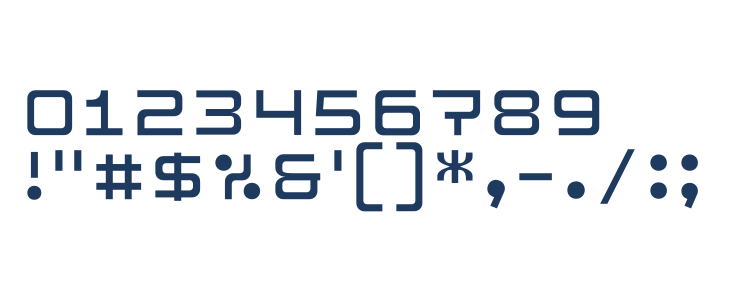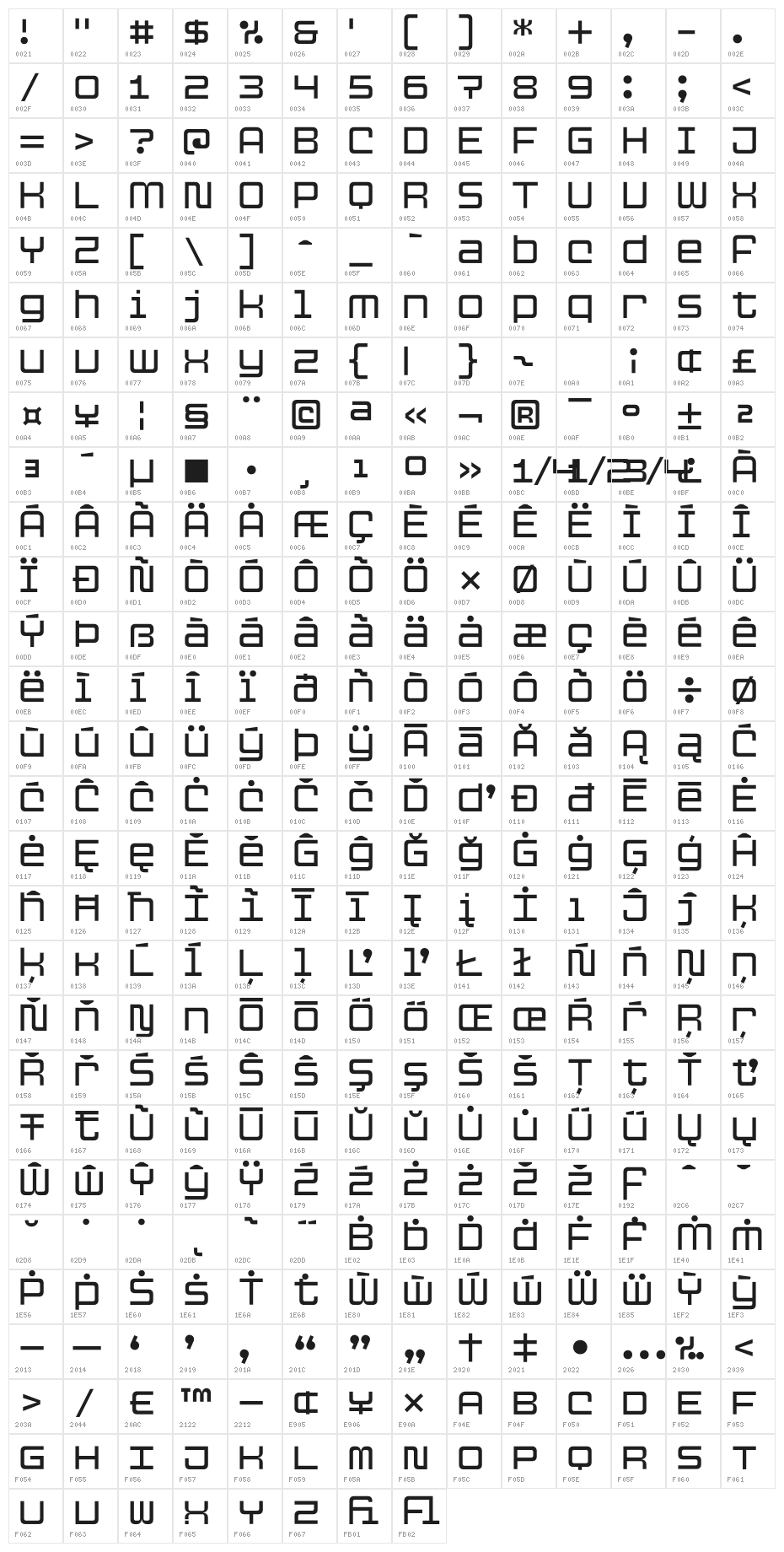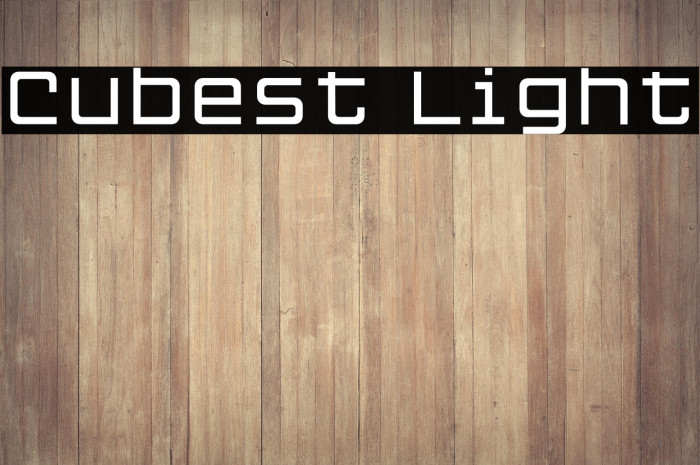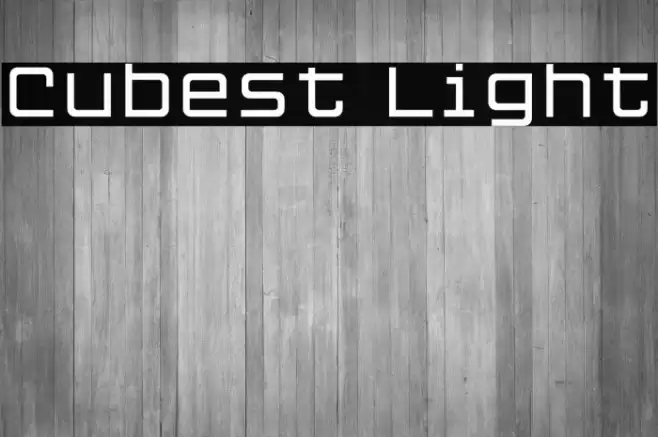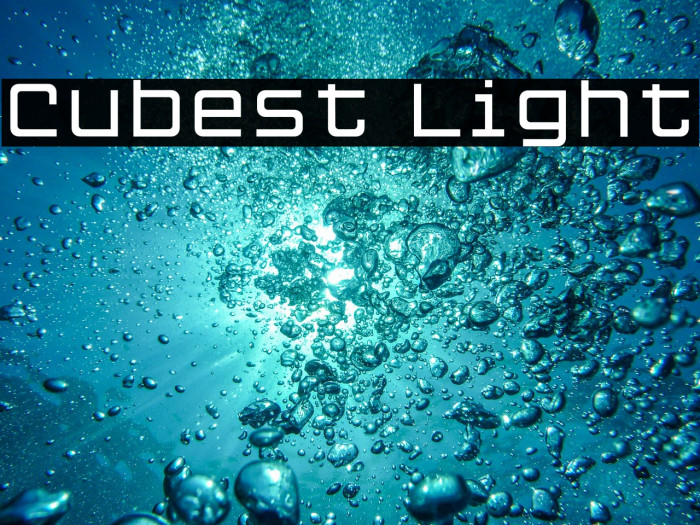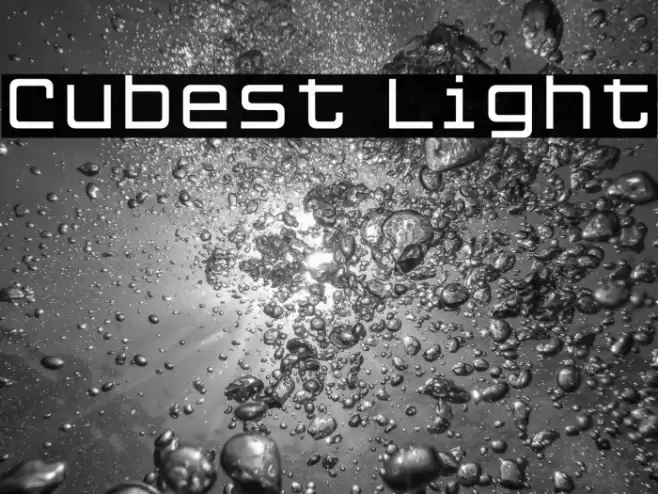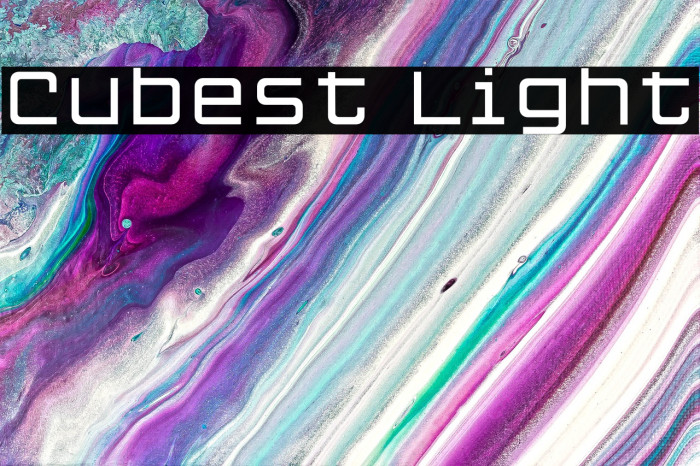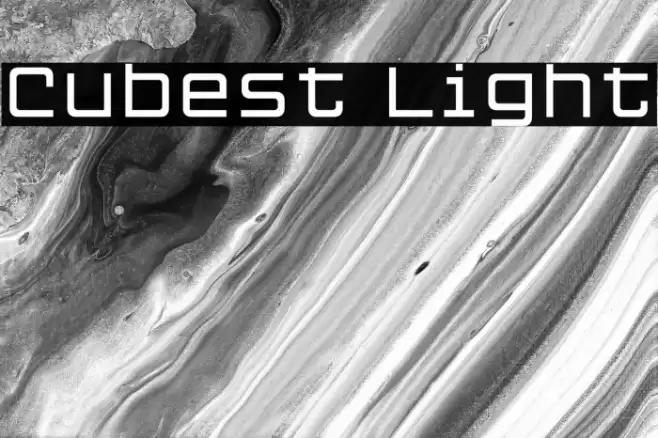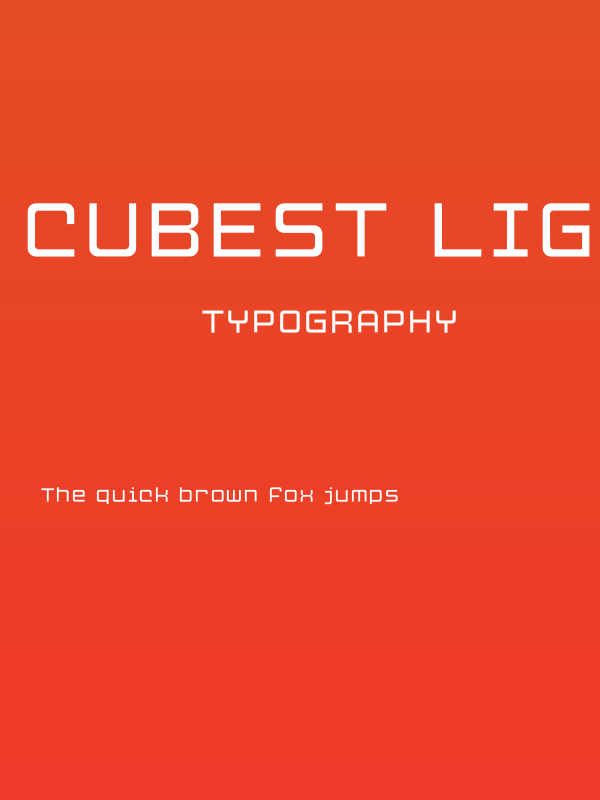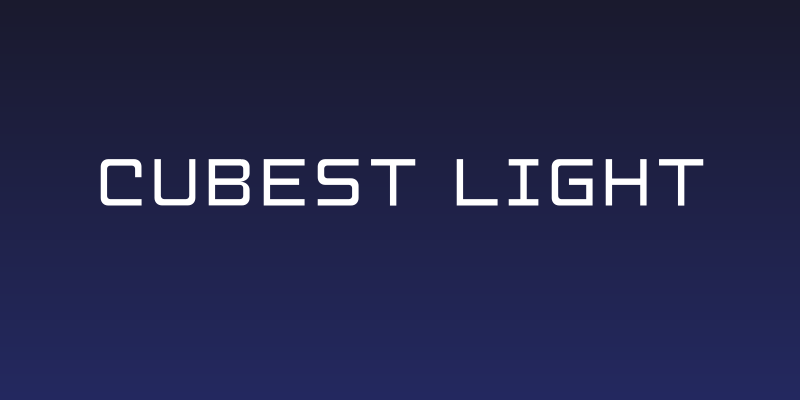
Cubest Light Font
Cubest Light Description
This font features a geometric and modern design with a clean, structured appearance. The characters are composed of straight lines and right angles, giving it a technical and futuristic feel. The uppercase and lowercase letters maintain a consistent height, contributing to a uniform look. The numbers and special characters are designed to match the overall style, ensuring cohesiveness across all glyphs. The font's simplicity and clarity make it suitable for digital interfaces and technology-related projects.
| Use Case | Logos, Headlines, Digital interfaces |
| Proposed Projects | Ideal for technology branding, digital interfaces, software development presentations, and modern advertising campaigns. |